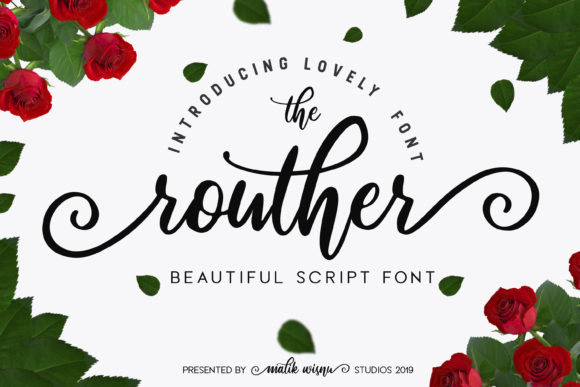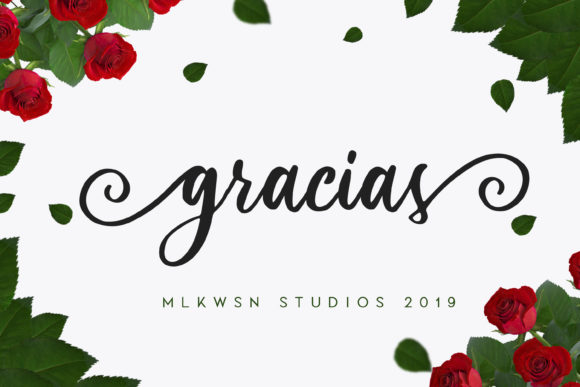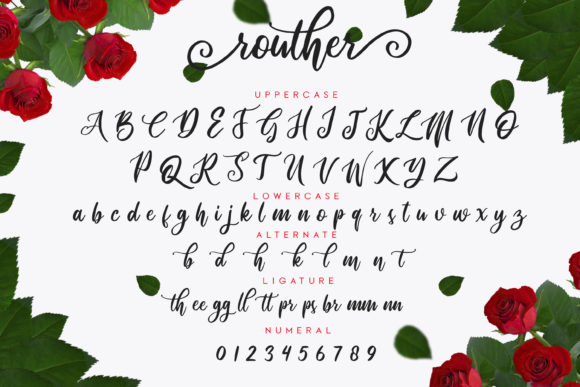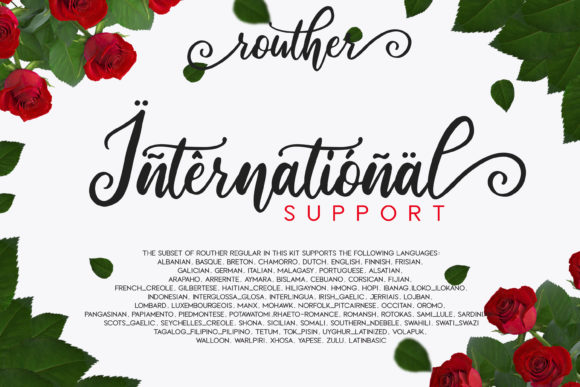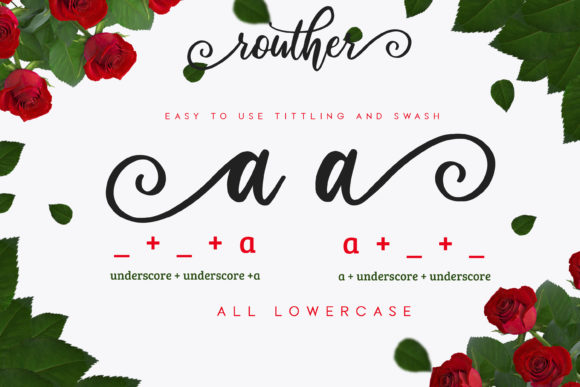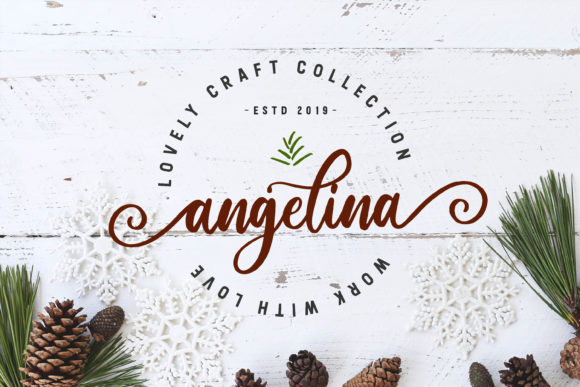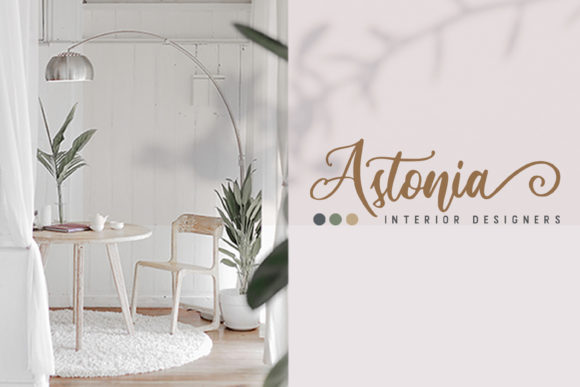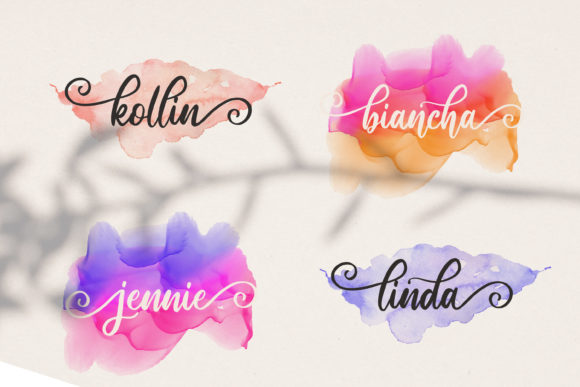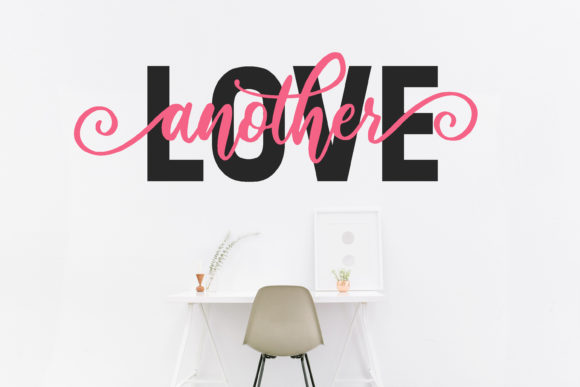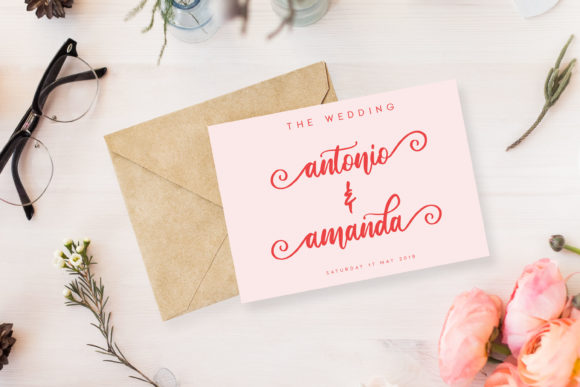
Routher Script Font
About Routher Script Font
The Routher is a beautiful script font. It has a modern, yet elegant touch and is perfect for giving your designs a luxurious feel.
It’s great for logos & branding, photography, invitations, watermarks, advertisements, and every other design which needs a handwritten feel.